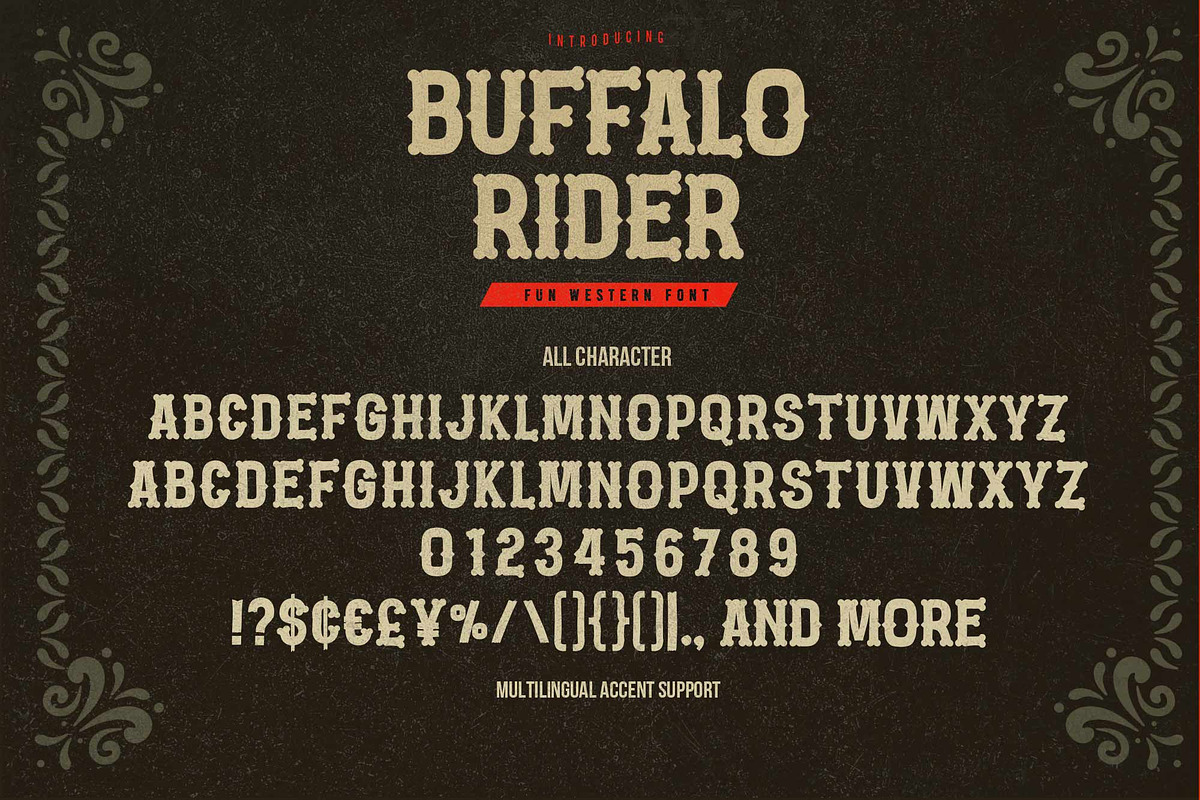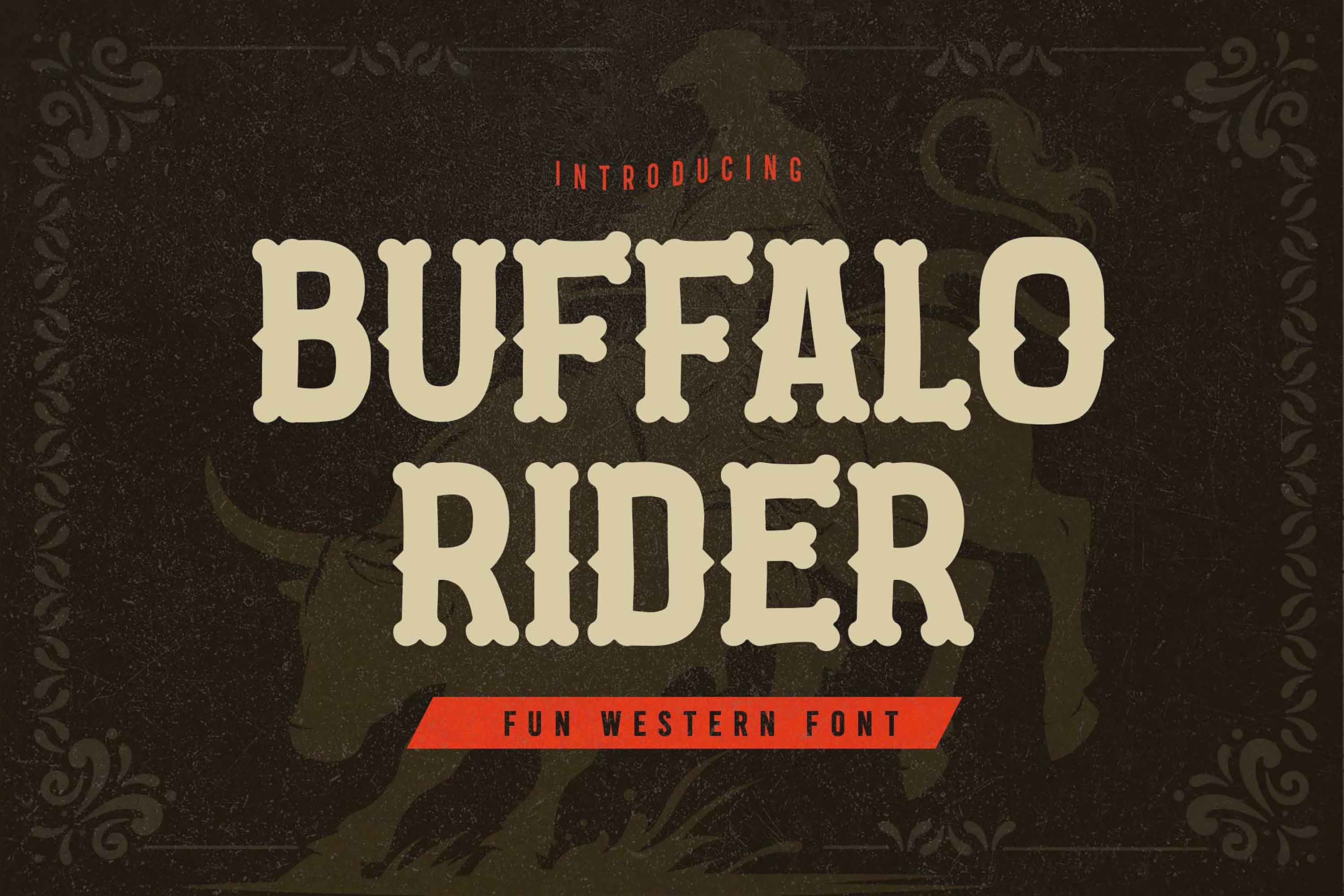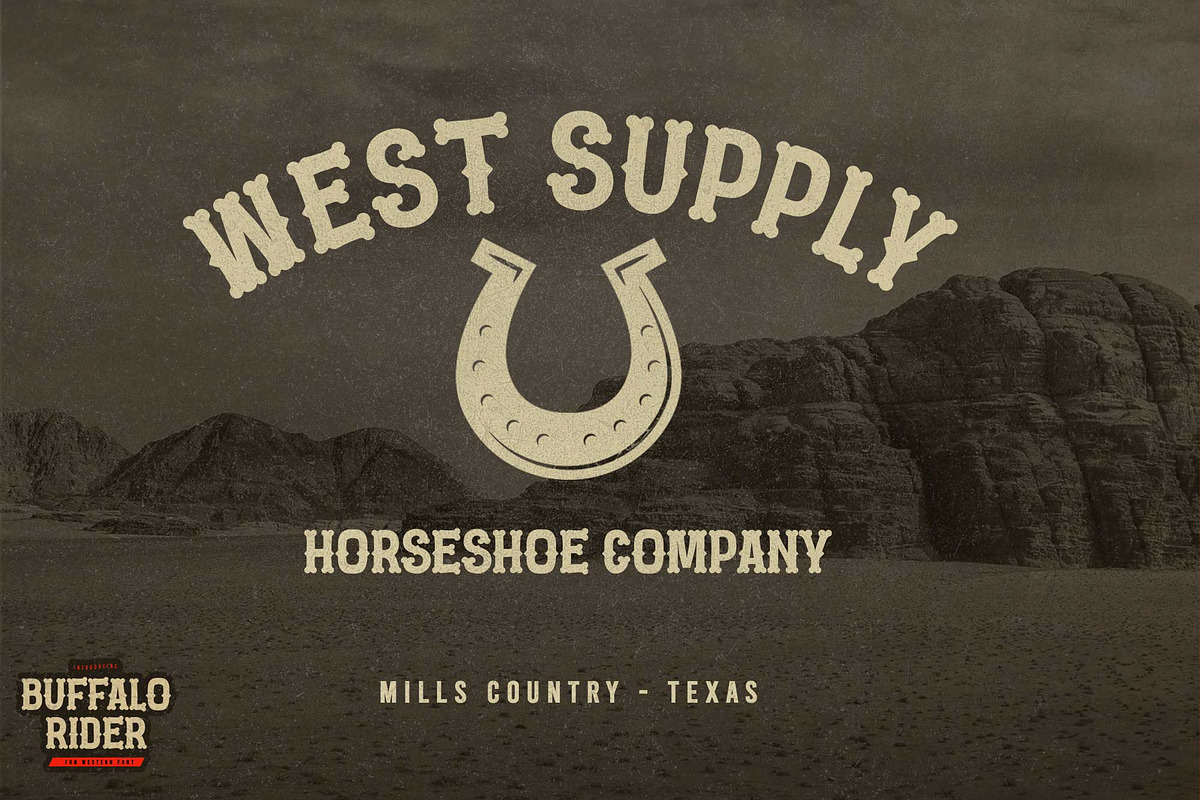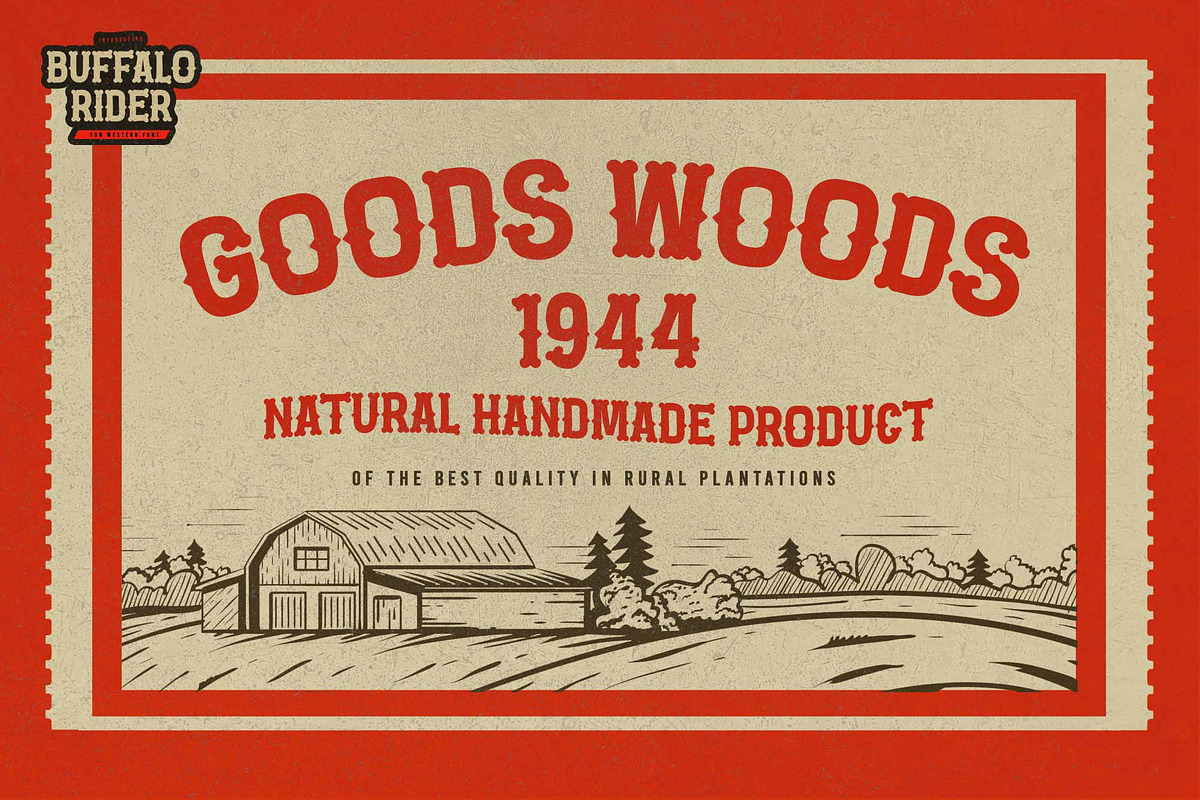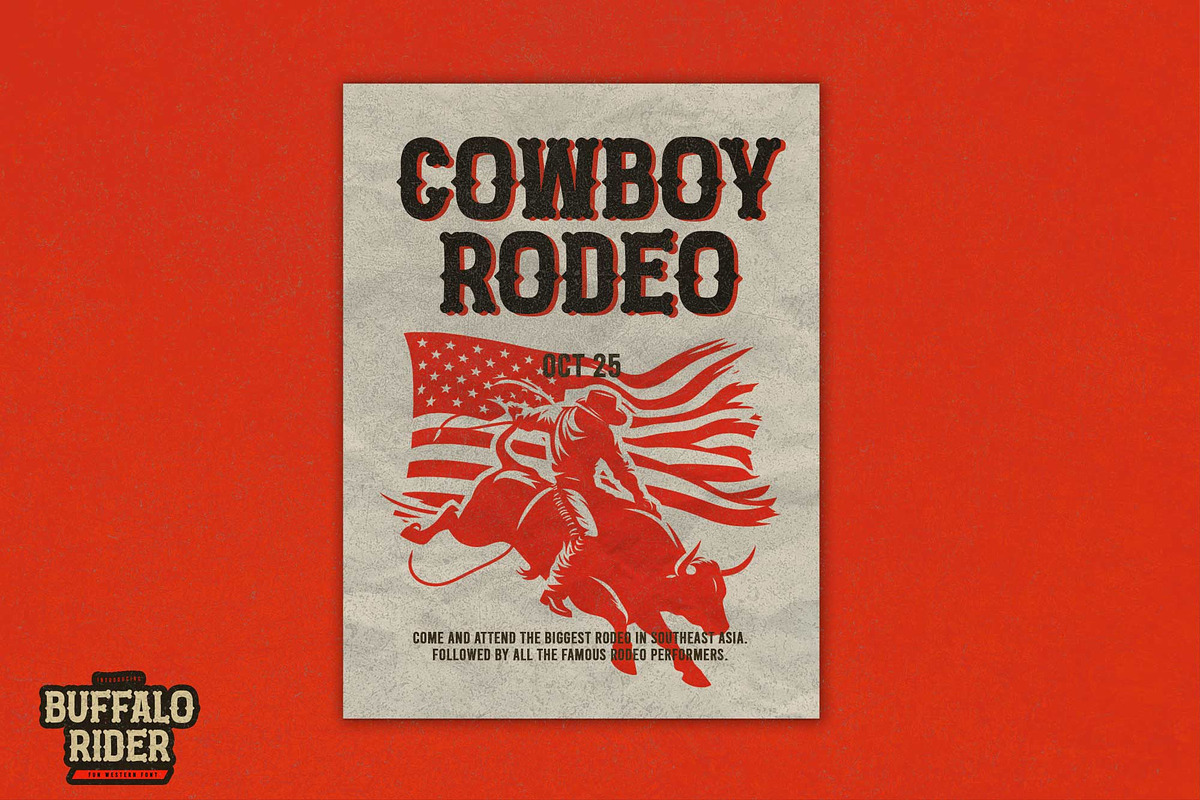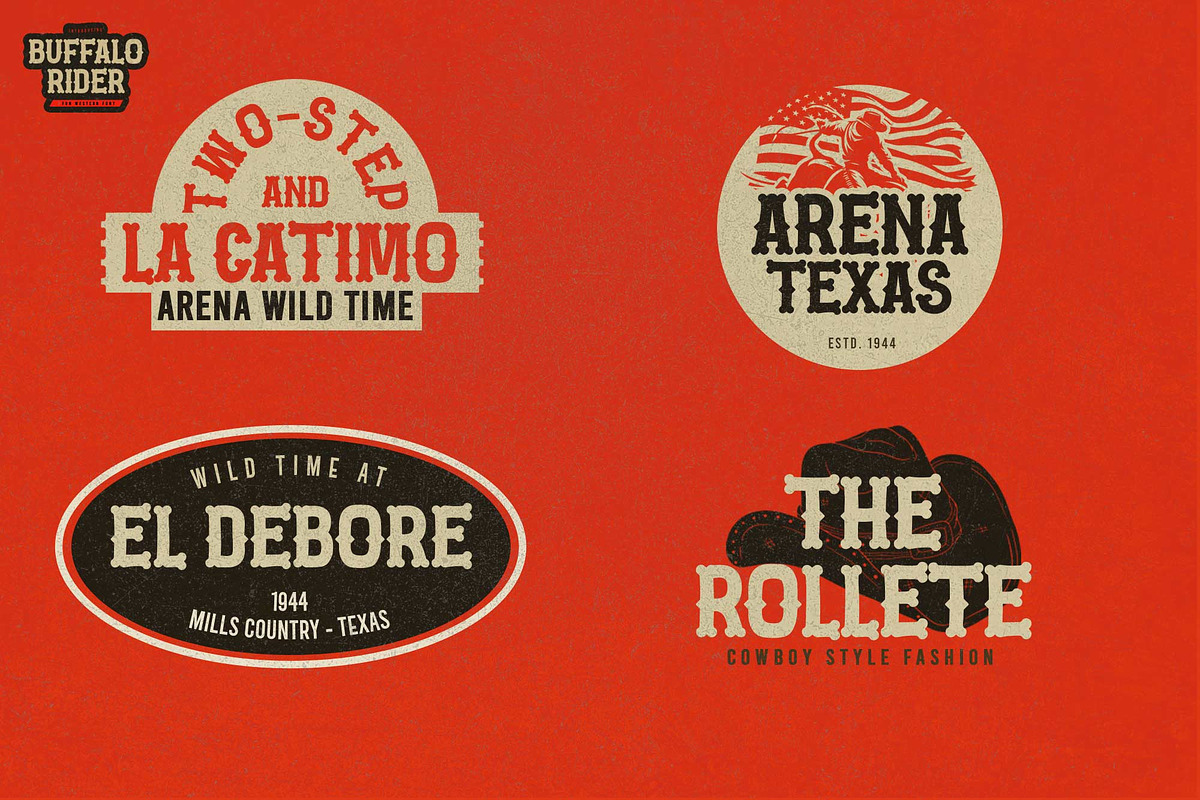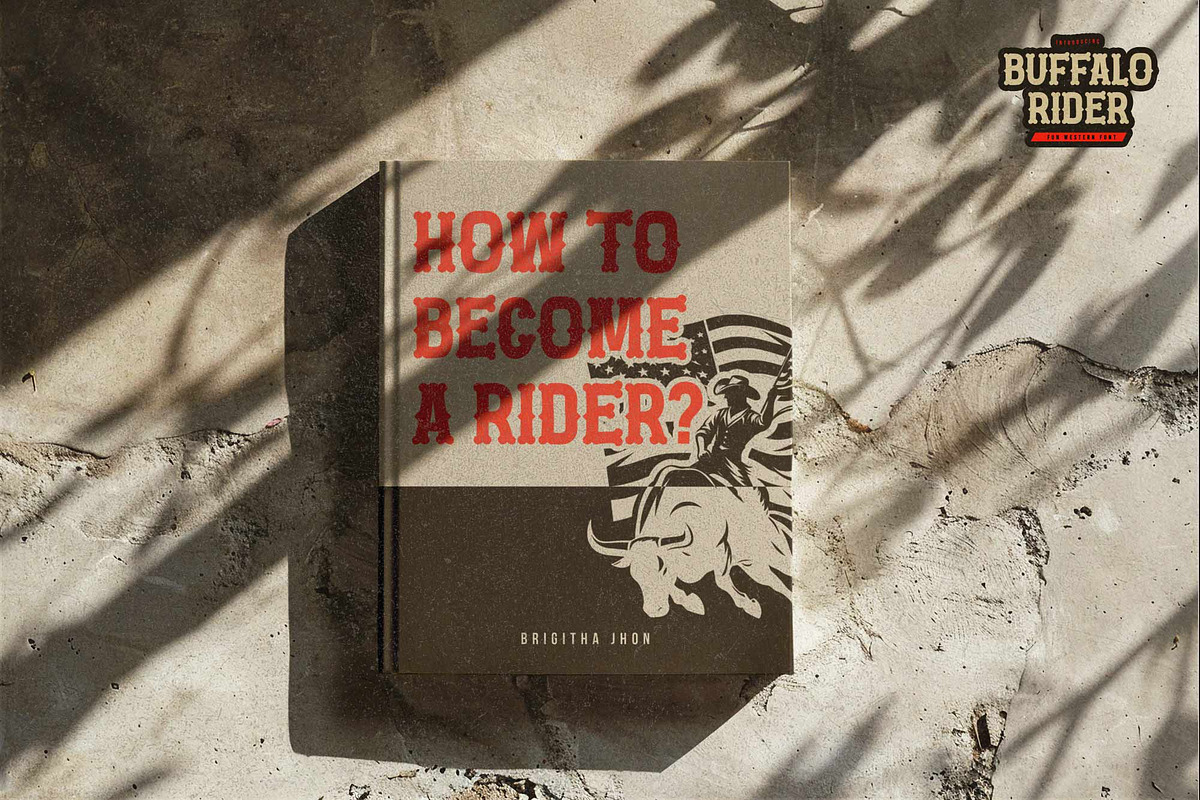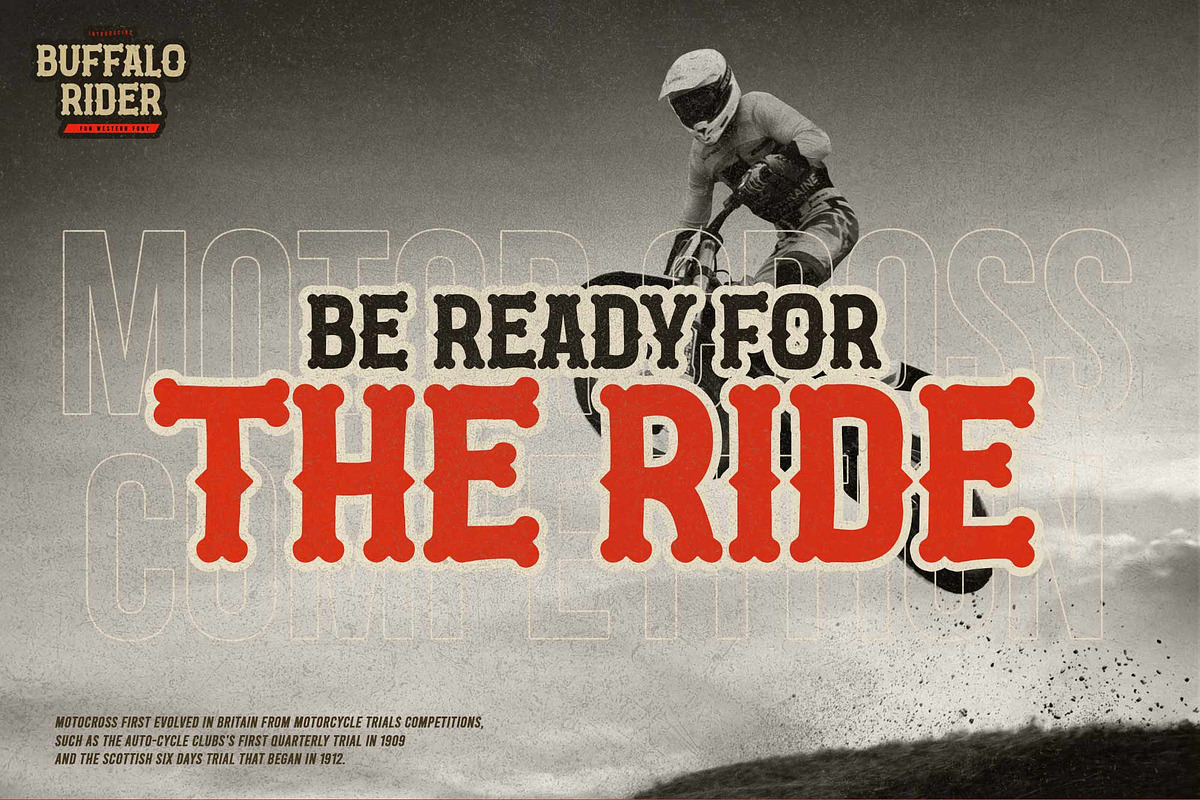
Buffalo Rider – Cowboy Display Font
Buffalo Rider is a bold, clean font that embodies the rugged spirit of the Wild West. With its natural, hand-crafted style and clear, dramatic movement, this font is perfect for making a strong statement in your designs.
Logos
Posters
Product packaging
Branding
Advertisements
Invitations
Stationery
Wedding designs
Labels
Photography watermarks
Quotes
and more
Add the bold and authentic character of this Font to your next project and capture the essence of the cowboy and wild west spirit.